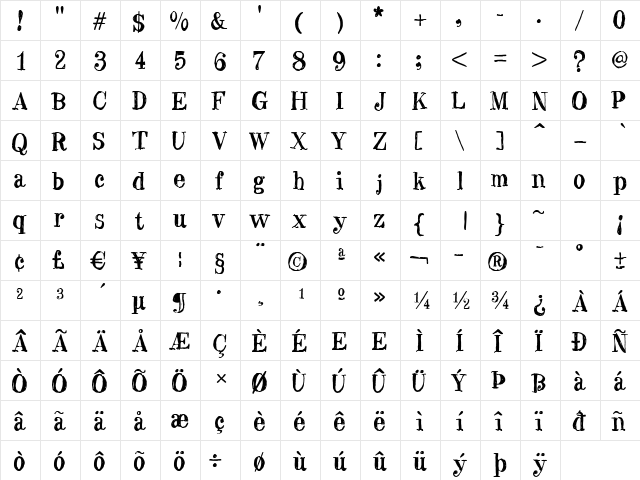
BlueCentury Regular
BlueCentury takes a measured approach to typography — its balanced proportions and neutral character make it a reliable workhorse for both digital and print work.